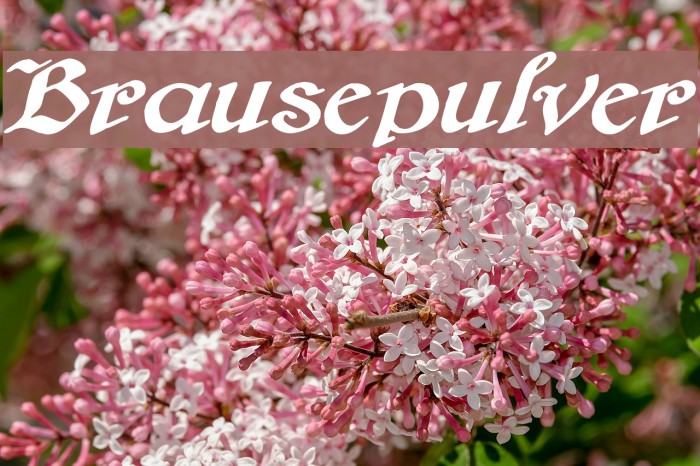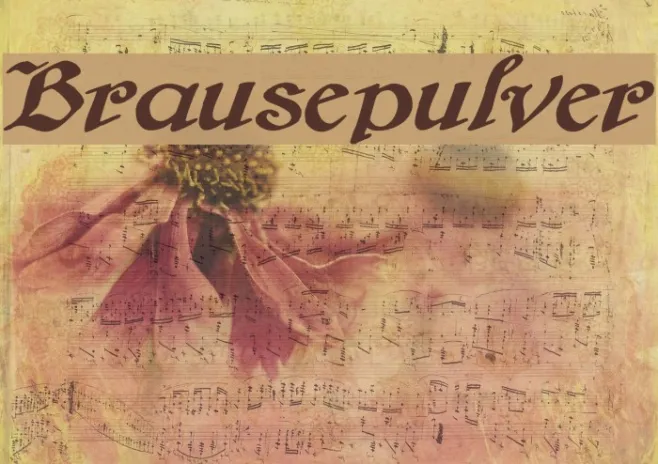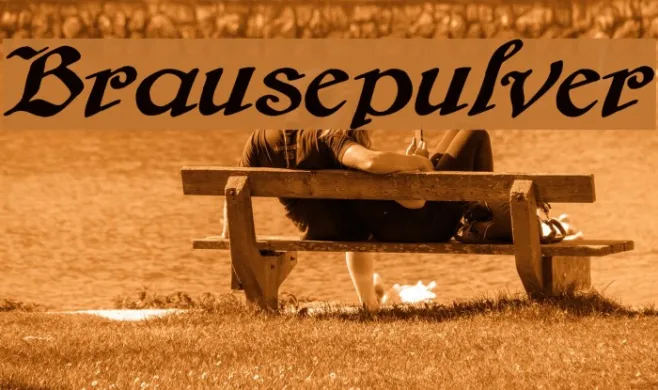
Brausepulver Font
This font features a bold and dynamic script style with a strong calligraphic influence. The characters are elegantly curved with pronounced flourishes, giving it a sense of movement and fluidity. The uppercase letters are particularly ornate, with intricate details that add a decorative touch. The lowercase letters maintain a consistent style, complementing the uppercase with their own unique flair. The numerals are bold and clear, matching the overall aesthetic. Special characters are designed with the same attention to detail, ensuring a cohesive look across all glyphs. This font's dramatic style makes it suitable for eye-catching designs.
A bold, calligraphic script font with ornate flourishes and dynamic curves.
- Proposed Projects: Ideal for wedding invitations, luxury branding, logo design, and decorative headlines.